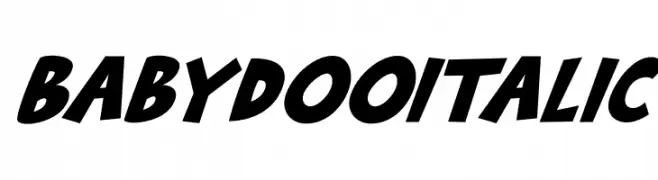
( Fonts by Alex Tomlinson - Skyhaven Fonts - shfonts.com )
A playful, hand-drawn font with bold, uneven strokes and a whimsical style.
( Fonts by German Olaya - www.typo5.com )
A playful, handwritten font with irregular, organic strokes.
( Fonts by www.kimberlygeswein.com - Kimberly Geswein )
A playful, hand-drawn font with decorative elements and a whimsical style.
( Fonts by Des Gomez )
A playful, hand-drawn font with bold, rounded characters and whimsical symbols.
( Fonts by Steve Cloutier - www.cloutierfontes.ca )
A bold, distressed font with a textured, organic appearance.
A playful, hand-drawn font with a whimsical and informal style.
A playful, bold font with uppercase letters in hand-drawn circles.
A playful, informal handwritten font with dynamic strokes and a whimsical appearance.
A whimsical, playful font with cloud-like textures and bow accents.
A playful, hand-drawn font with a scribbled texture and bold, sketch-like letters.
( Fonts by Des Gomez )
A playful, hand-drawn font with a whimsical and artistic style.
( Fonts by Des Gomez )
A playful, hand-drawn font with bold, uneven strokes and a whimsical style.
( Fonts by Poemhaiku - Huong Le Thi Thu - www.behance.net/poemhaiku )
Hand-drawn, playful symbol font with hearts and cartoon faces.
( Fonts by Des Gomez )
A bold, playful handwritten font with thick strokes and quirky shapes.
( Fonts by Galdino Otten - galdinootten.com )
A bold, textured font with a snowy, distressed appearance.
( Fonts by Galdino Otten - galdinootten.com )
A distressed, textured font with a rugged, wintry appearance.
( Fonts by Des Gomez )
A playful, hand-drawn font with a sketch-like, textured appearance.
( Fonts by Des Gomez )
A bold, hand-drawn font with playful patterns and a whimsical style.
( Fonts by www.lifewithouttaffy.com )
A bold, handwritten font with playful, irregular strokes.
( Fonts by www.aka-acid.com )
A playful, hand-drawn font with characters resembling quirky robots.
( Font by Jonathan Harris - www.tattoowoo.com )
A whimsical, hand-drawn style font with playful decorative elements.
A bold, industrial font with a distressed, eroded effect for a rugged look.
( Fonts by Khrys Bosland )
A playful, hand-drawn font with characters enclosed in irregular outlines.